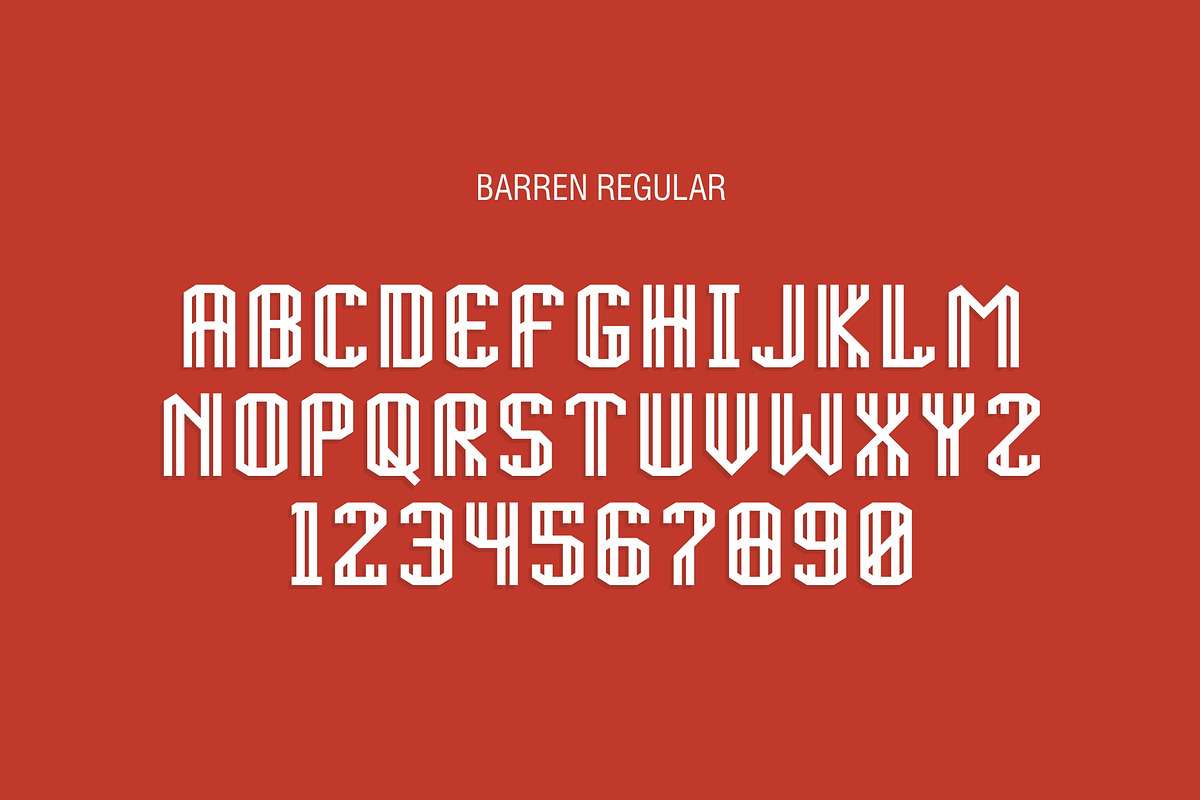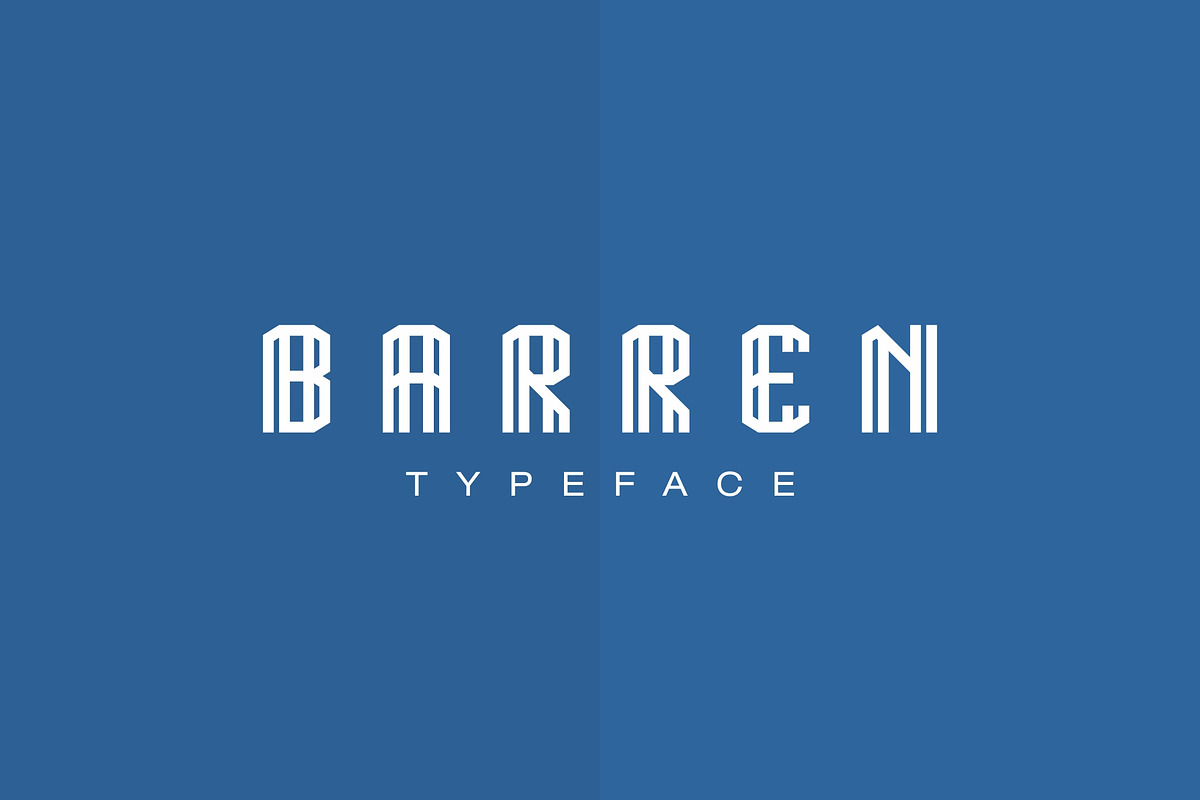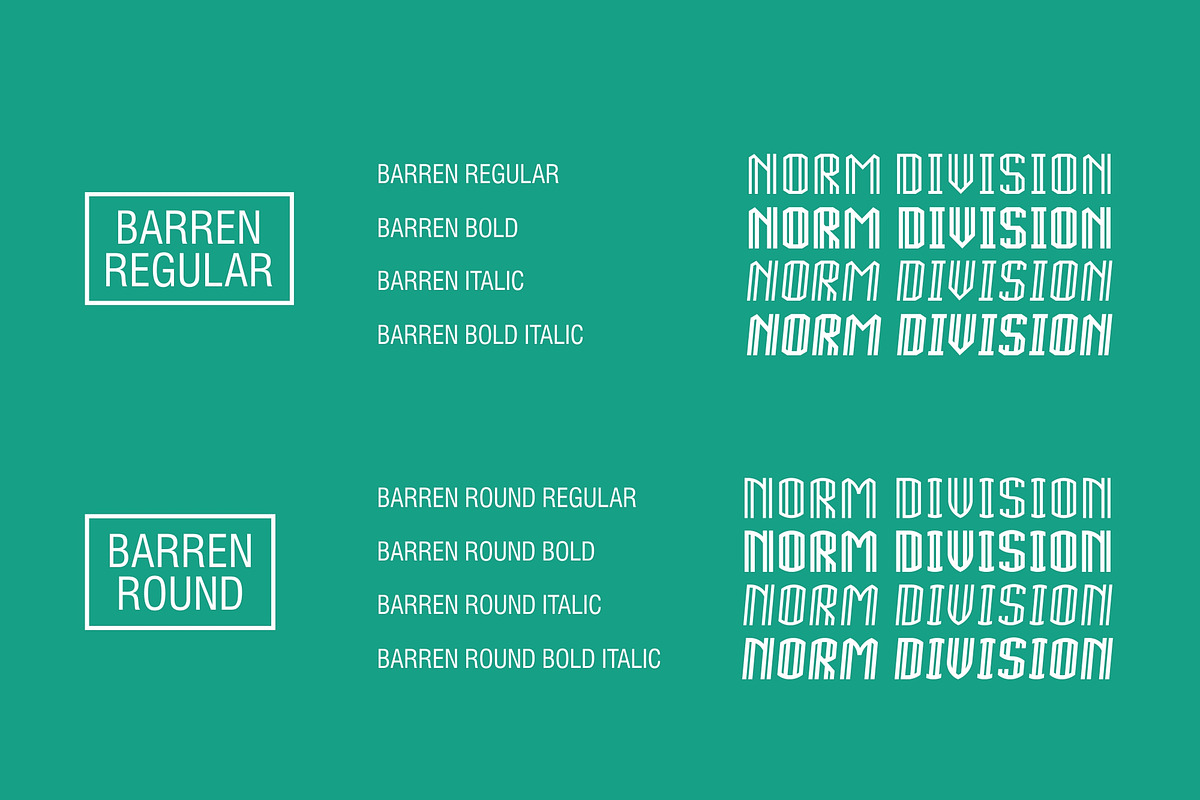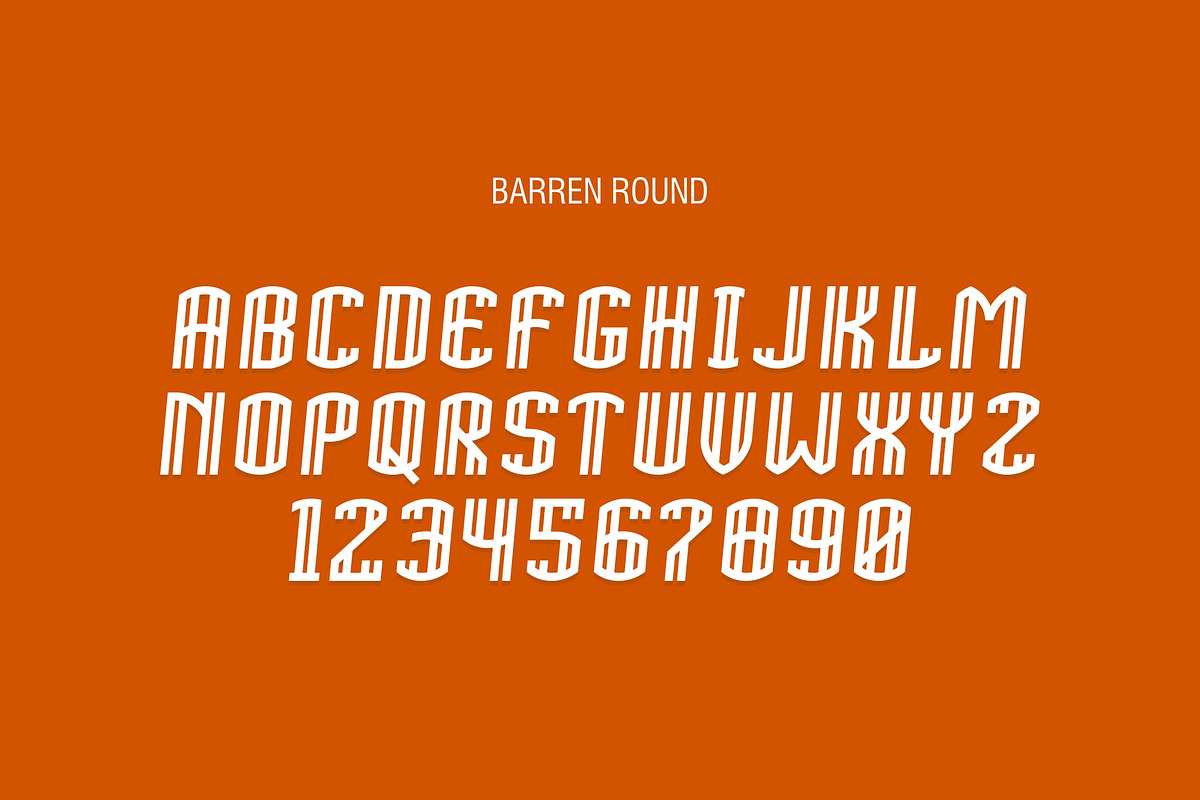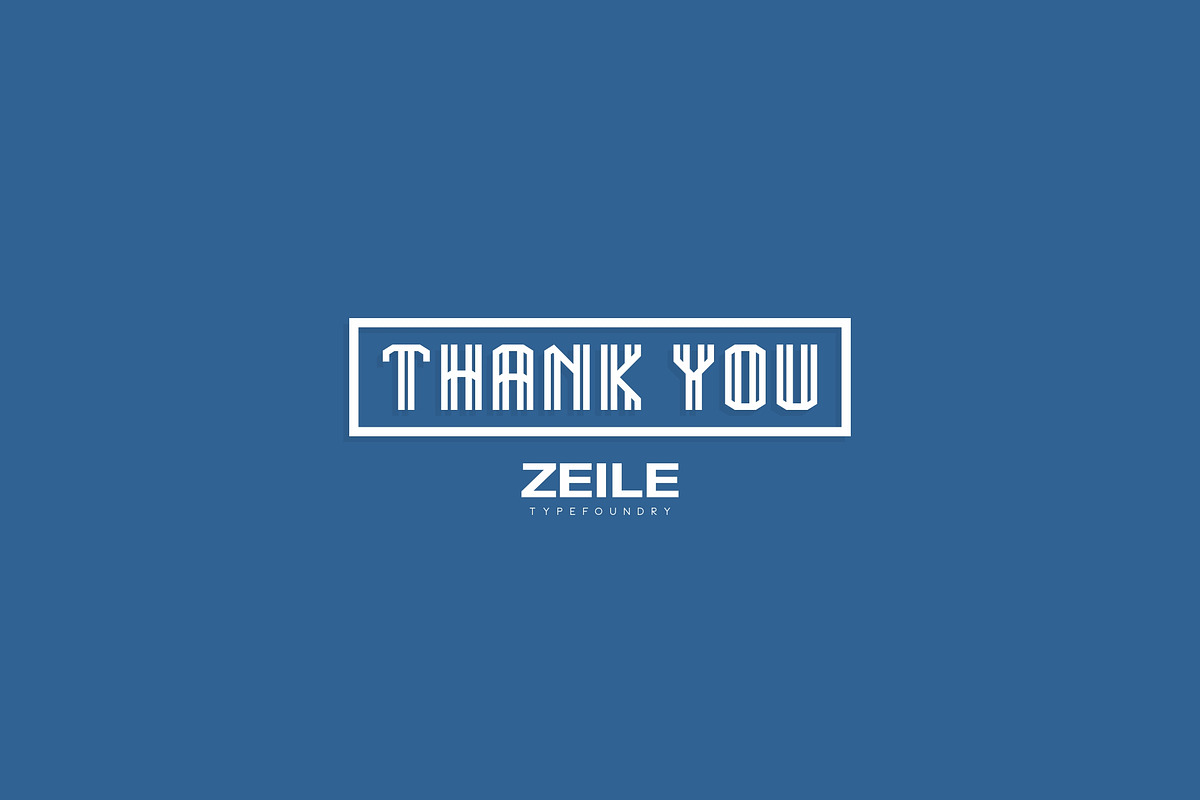
BARREN TYPEFACE
BARREN TYPEFACE by ZEILE Type Foundry is a font selected for branding, posters, packaging, typography.
Why BARREN TYPEFACE is worth a look
BARREN TYPEFACE by ZEILE Type Foundry fits naturally into Branding, posters, packaging, typography.